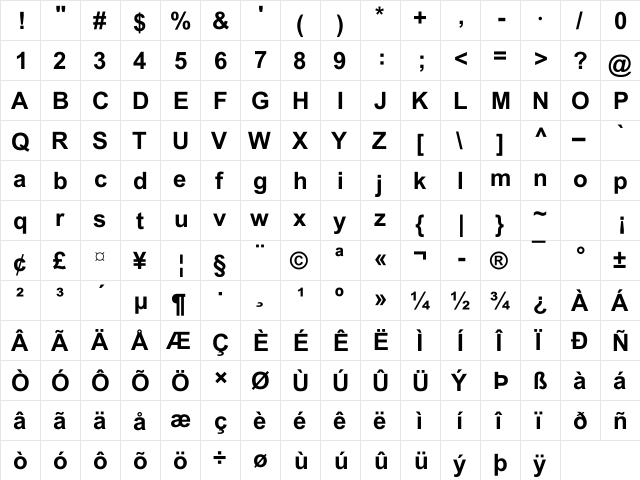
UKIJ Tuz Tom Regular
| Foundry | Uyghur Computer Science Association |
| Designer | Alim Ahat, Adiljan Abliz (Uchqur) |
Design Context for UKIJ Tuz Tom Typeface
UKIJ Tuz Tom offers clean, dependable letterforms without strong stylistic allegiance, making it a practical choice for designers who need flexibility.